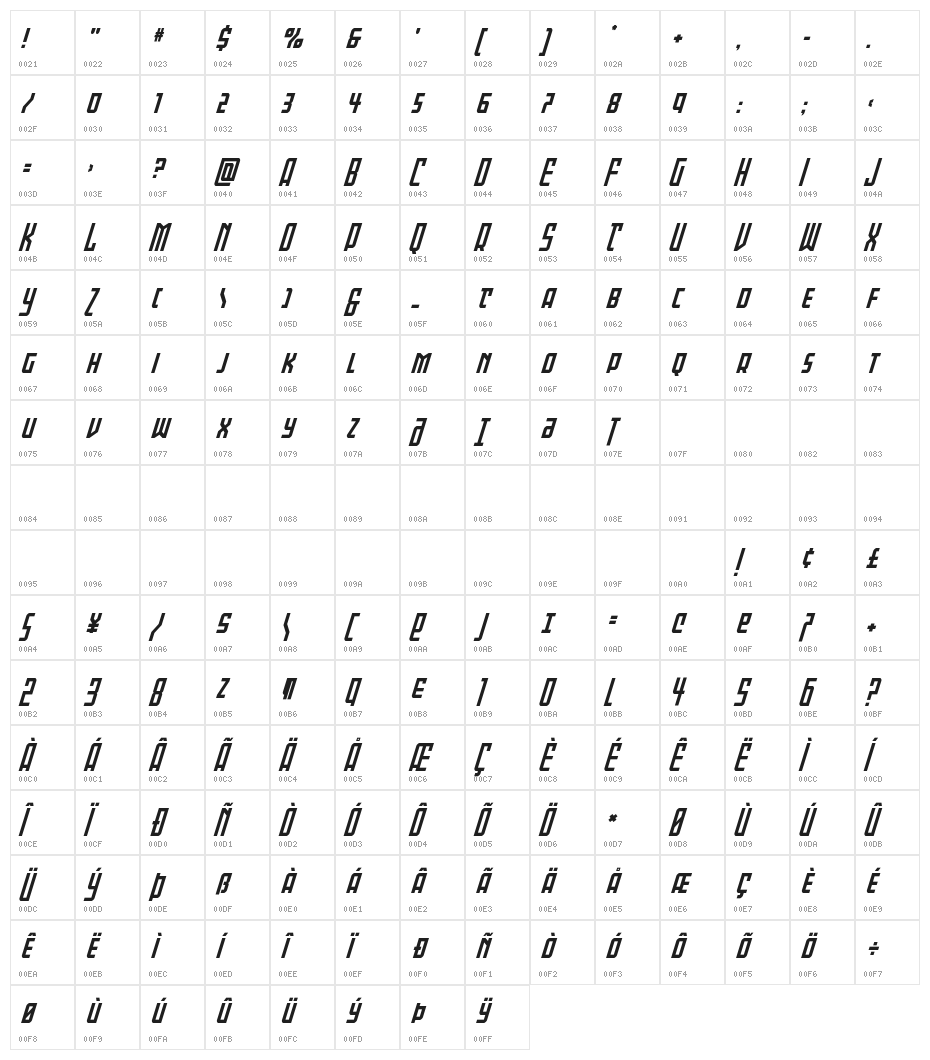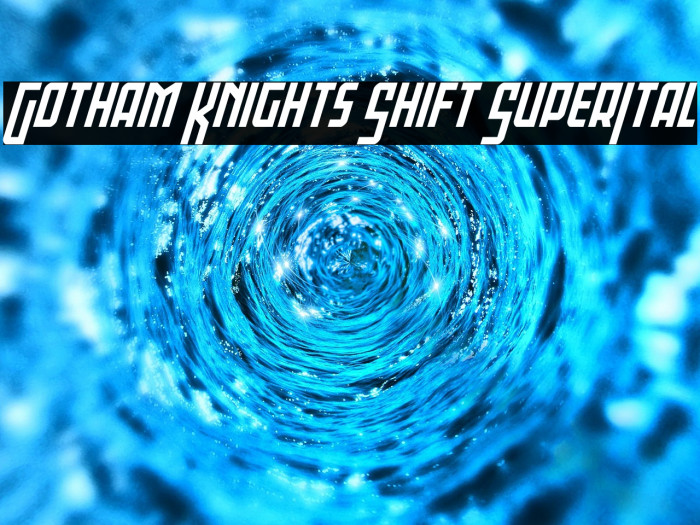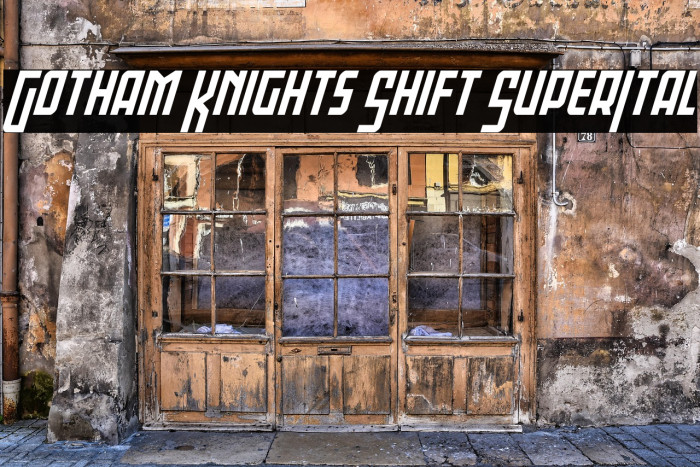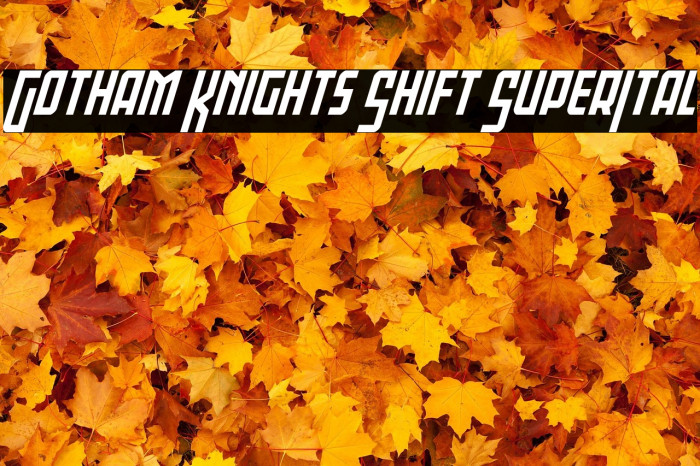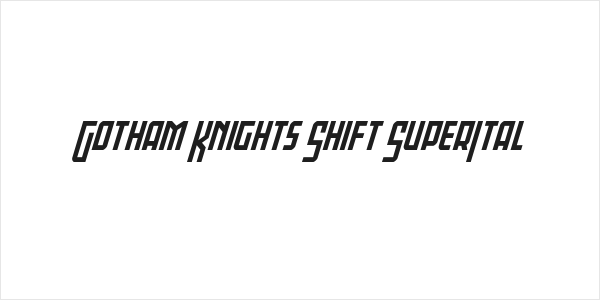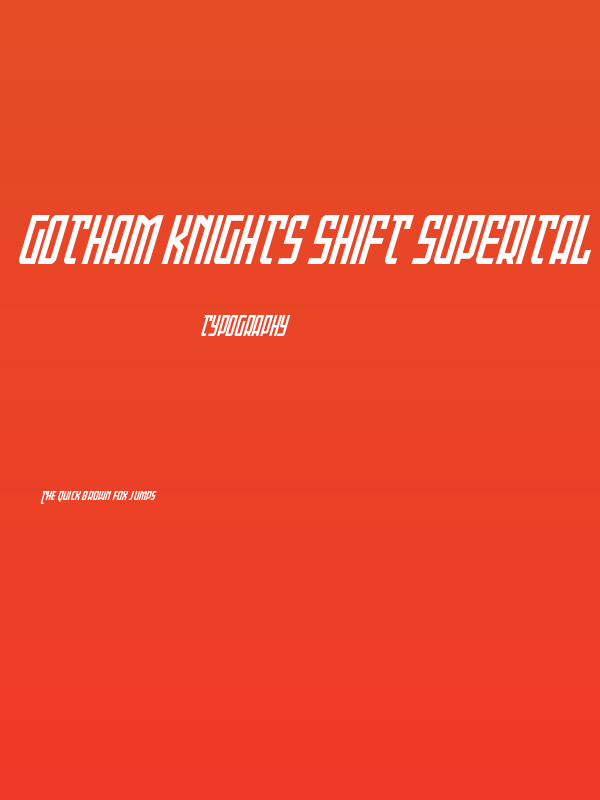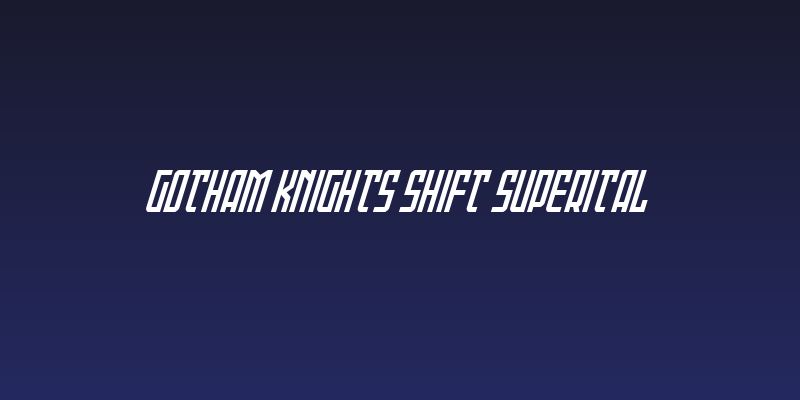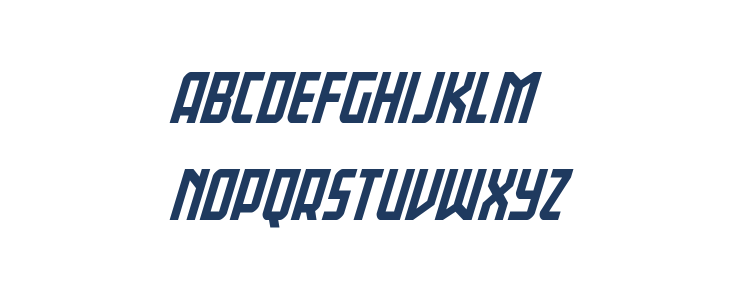
Gotham Knights Shift SuperItal Font
Gotham Knights Shift SuperItal Description
This font features a bold, angular design with a futuristic and dynamic appearance. The characters are sharply defined with a strong slant, giving a sense of movement and energy. The uppercase letters are particularly striking, with a geometric style that emphasizes vertical and diagonal lines. The lowercase letters maintain the same angular aesthetic, ensuring consistency across the typeface. Numbers and special characters are equally bold and angular, making them stand out. The overall design is modern and assertive, suitable for projects that require a strong visual impact.